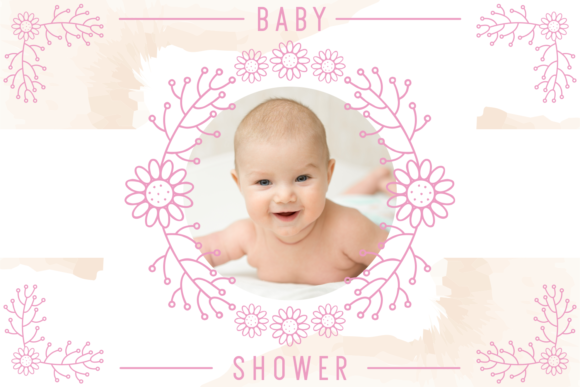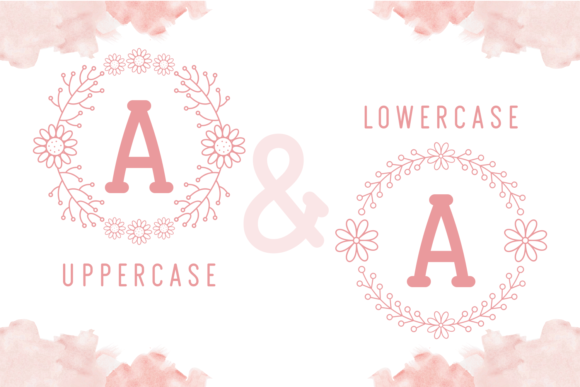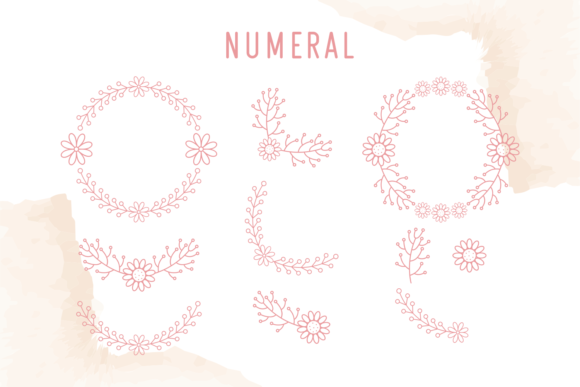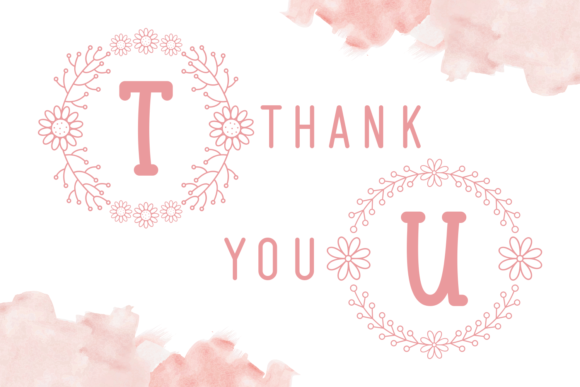
Introduction to Kasley Font
As a designer, there’s nothing quite like the rush of inspiration that comes when you stumble upon the perfect font to elevate your creative project. It’s the moment when all the pieces fall into place, and you know exactly how to bring your vision to life. For many of us, this moment is a regular occurrence, but it’s always exciting to discover new design resources that can take our work to the next level.
One such resource is the Kasley Font, a modern and trendy display font that’s sure to add a touch of sophistication to any design. Whether you’re working on a branding project, creating social media graphics, or simply need a high-quality font for your next creative endeavor, Kasley Font is an excellent choice.
Key Features of Kasley Font
- High-quality, professional font suitable for creative projects and designs
- Designed to be versatile and adaptable for use in a wide range of design resources
- Includes a variety of characters, including uppercase and lowercase letters, numbers, and punctuation marks
Honest Review: Kasley Font
I recently stumbled upon the Kasley Font, and I must say, it’s a fantastic addition to any designer’s toolkit. This free download has been a game-changer for my creative projects.
What works well for me is the high-quality design of the font, which offers a unique blend of modern and vintage elements. The transparent background makes it easy to integrate into various design elements, from logos to social media graphics.
Here are some of the features that make Kasley Font stand out:
- High-quality design suitable for various creative projects
- Perfect for logos, social media graphics, and other design elements
However, I did encounter some limitations with the font’s compatibility with older software versions. ⚠️ Some designers might experience issues when using Kasley Font with outdated software.
Overall, I’m impressed with the Kasley Font, and I’d highly recommend it to fellow designers. It’s a valuable addition to any design resource collection, and its high-quality design makes it perfect for creative projects. ✨